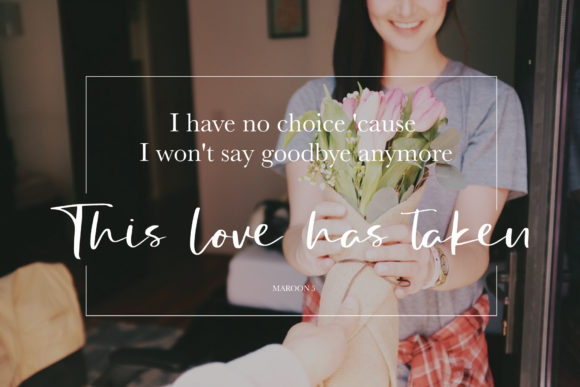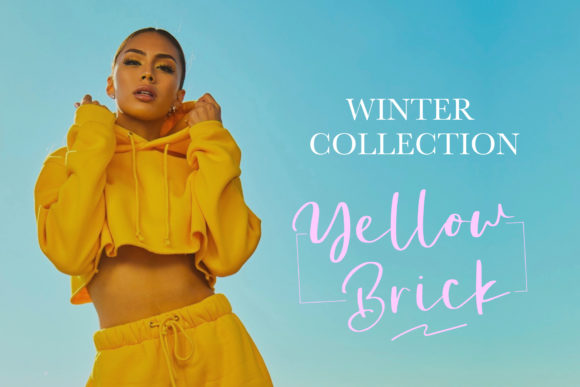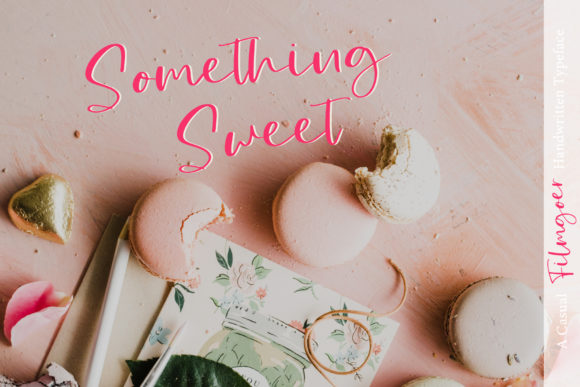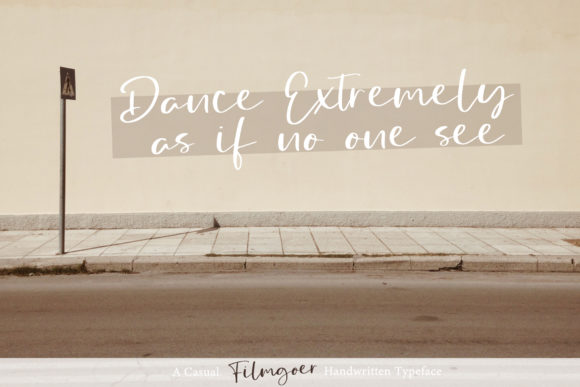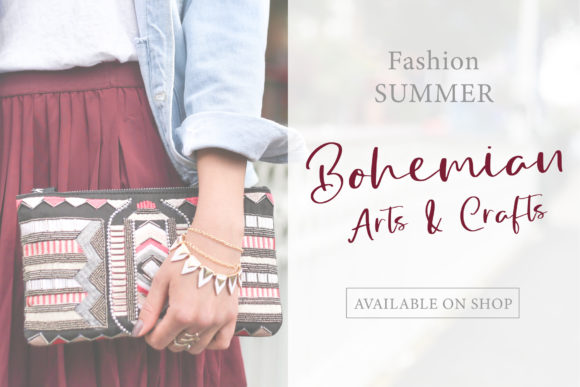
Introduction to Filmgoer Font
Have you ever sat in a dimly lit movie theater, surrounded by the whispers of fellow film enthusiasts, and felt an overwhelming urge to capture the essence of the cinematic experience? For many of us, the magic of movies is not just about the story, but about the emotions and memories they evoke. As designers, we strive to bottle that magic in our creative projects, and that’s where the Filmgoer Font comes in – a perfect blend of elegance and whimsy that’s sure to leave a lasting impression.
This delightful script font is a design resource that’s as versatile as it is charming. With its casual handwritten look, the Filmgoer Font is ideal for a wide range of applications, from lovely wedding invitation cards to branding and blog posts. And the best part? It’s available for free download, complete with a transparent background, making it a high-quality addition to any design project.
Key Features of Filmgoer Font
- High-quality, professional design ideal for creative projects and design resources.
- Features a clean and elegant design, suitable for use in various contexts, including logos, titles, and body text.
- Unique characteristics include a modern aesthetic and a wide range of stylistic alternates, allowing for creative flexibility and customization.
Honest Review: Filmgoer Font
I recently had the chance to work with the Filmgoer Font in a creative project, and I must say it’s been a game-changer for my design resource arsenal. This font is perfect for any project that requires a vintage, cinematic feel.
- What works well: ✨ The Filmgoer Font has a beautiful, high-quality design that’s perfect for adding a touch of sophistication to your design. The transparent background makes it easy to overlay on top of other elements, and the font itself is highly customizable.
- What works well: ✨ The free download option is a major plus, making it an excellent choice for designers on a budget. The font is also fully scalable, so you can use it in anything from small graphics to large-scale designs.
However, there are a few limitations to be aware of:
- ⚠️ The font is not as versatile as some other options, so it may not be the best choice for every project. It’s particularly suited for projects with a vintage or retro theme.
- ⚠️ The font is not suitable for body text, as it can be difficult to read in small sizes.
Overall, I’m really impressed with the Filmgoer Font. It’s a high-quality design resource that’s perfect for designers looking to add a touch of sophistication to their projects. Just be aware of its limitations and use it accordingly.
Tips for Getting the Most Out of Filmgoer Font
To get the most out of Filmgoer Font, use it sparingly to create emphasis and draw attention to important elements in your design. You can also experiment with different font sizes, colors, and styles to create a unique look.
Filmgoer Font is ideal for use in creative projects, such as movie posters, social media graphics, and presentations. Its high-quality design and transparent background make it perfect for use in a variety of design applications.
Alternatives to Filmgoer Font
Great Vibes is a modern, elegant font perfect for creative projects and designs that require a sophisticated touch. It’s ideal for use in posters, flyers, and brochures where a high-quality, artistic feel is desired.